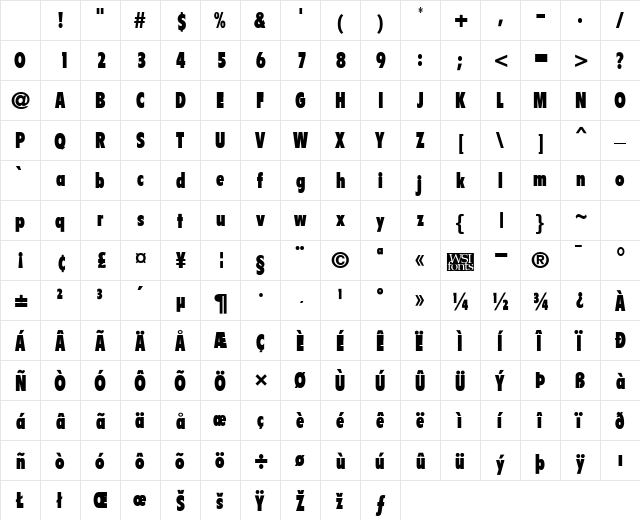
Bulletin Regular Free Font
Bulletin Regular
Complete Bulletin Regular glyph index. Displaying only characters natively supported by Bulletin Regular font.
Design Context for Bulletin
Bulletin is a composed and adaptable typeface that performs quietly and consistently across a wide range of design contexts.